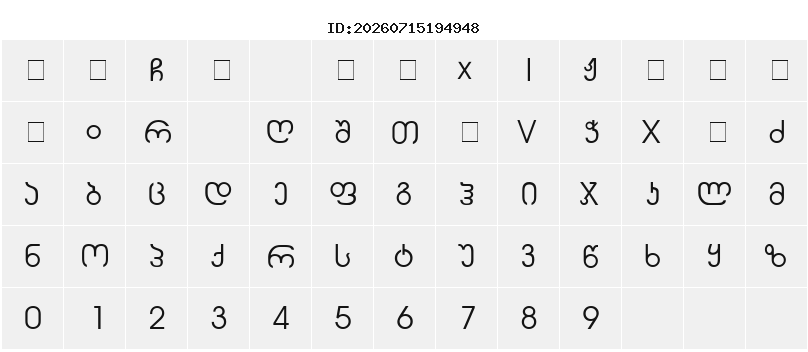
Avaza Mtavruli Preview
• Font Name: Avaza Mtavruli
• Full Font Name: Avaza Mtavruli
About Avaza Mtavruli.ttf
Avaza Mtavruli.ttf is a modern, elegant sans-serif font designed for ultimate readability and visual harmony. Perfect for branding, headlines, web design, and print materials.